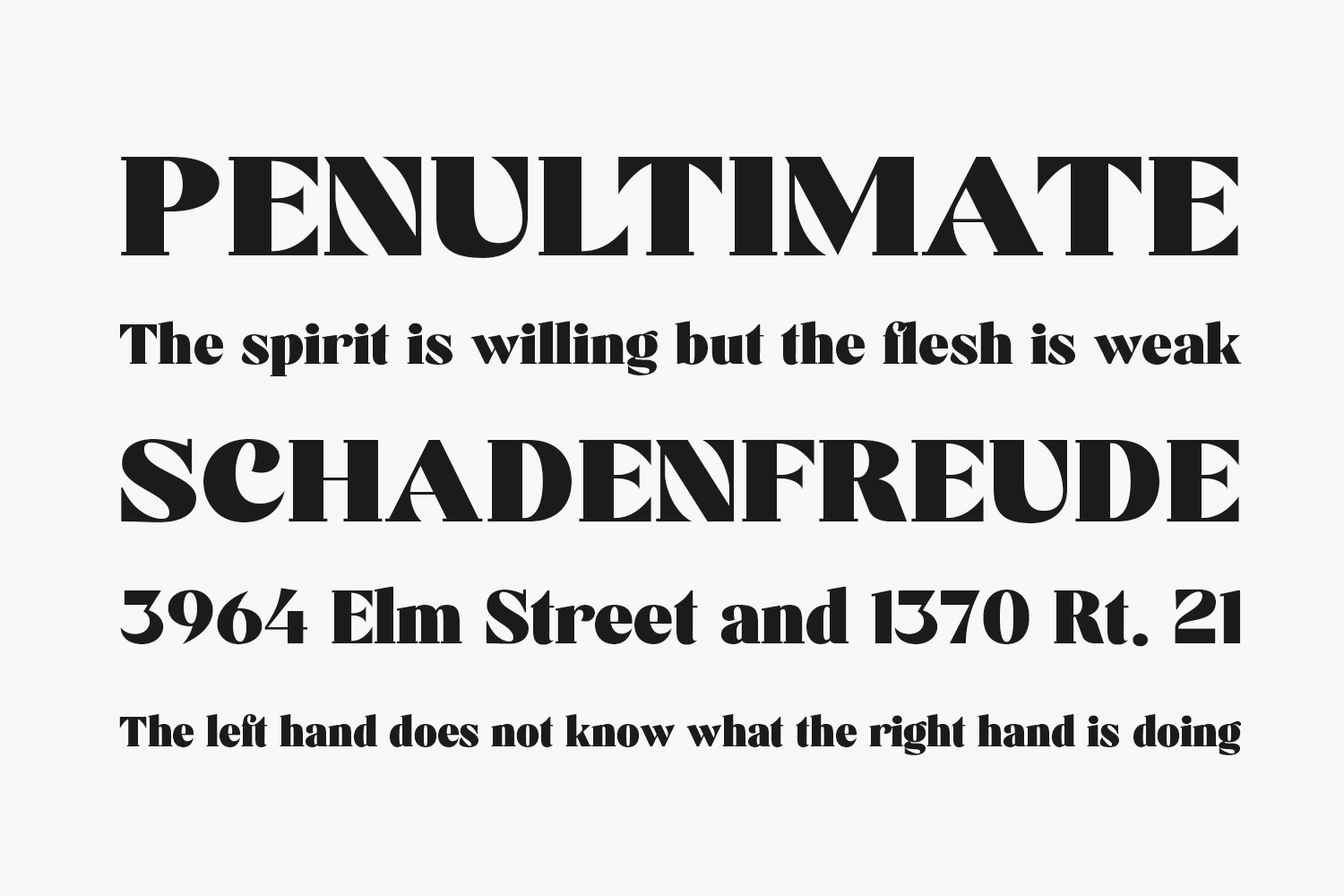
Astrella Free Font is a timeless beauty that exudes classic femininity and elegant grace. Its serifs are delicate and refined, while its curves are soft and sophisticated. Perfect for elegant branding, high-end wedding invitations, or romantic literature, Astrella is a font that speaks of classic style and sophisticated charm.